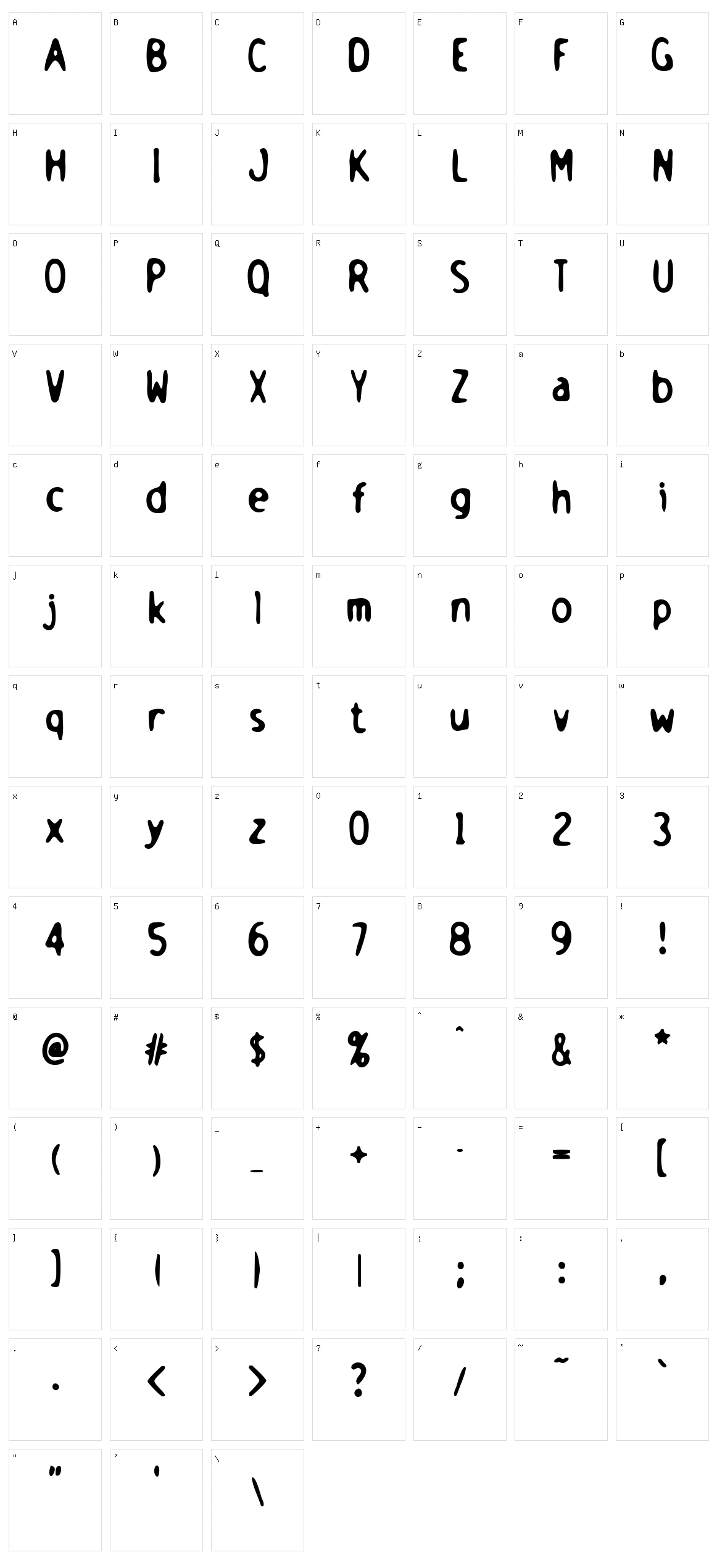
What is Holstein?
This is a cool font that is very readable but on the grungy side. There are
no serifs, so the font looks smooth. It has a lot of uses! Also check out the
heavier version, Holstein Bold.